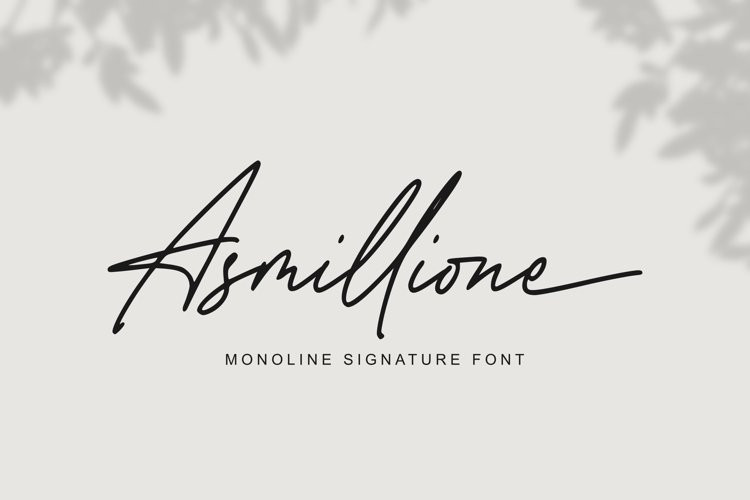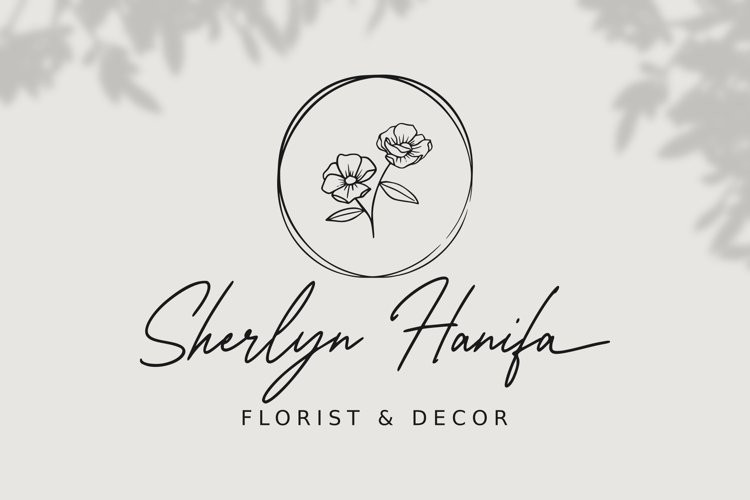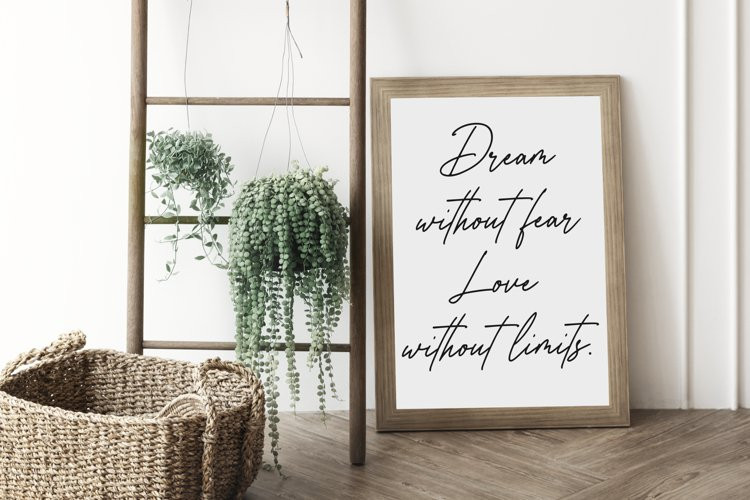
Asmillione Font
Asmillione is a monoline signature font with a handwriting feel. It’s perfect for logos, product packaging, wedding invitations, branding, headlines, signage, labels, signature, book covers, posters, quotes, and more.